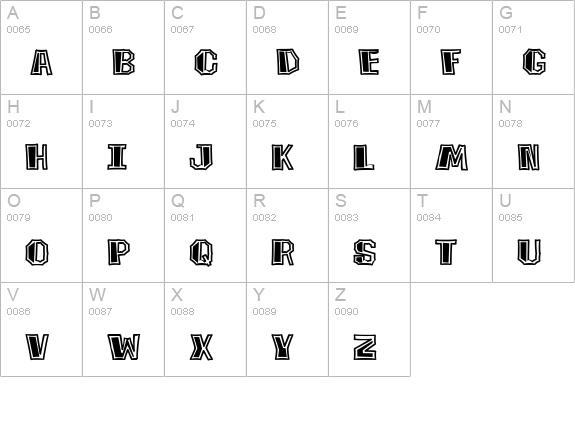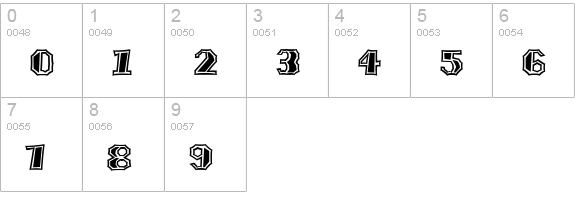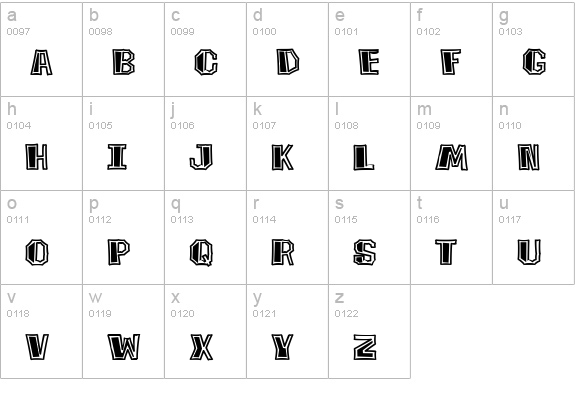
Tiki Tooka BV Font Details
Tiki Tooka BV is a free for personal use font in the General > Outline category. It has been downloaded 11 times and is available for Windows, Mac and Linux.
Tiki Tooka BV font is a stunning display font that exudes a playful and tropical vibe. With its unique and intricate design, this font captures the essence of Tiki culture, transporting you to a world of exotic paradise and laid-back vibes. Every letter is meticulously crafted, showcasing intricate details and a bold, energetic style that is sure to catch the eye. This font is not only visually captivating but also incredibly versatile. Whether you're designing a logo, creating eye-catching headlines, or adding a touch of personality to your social media posts, Tiki Tooka BV font is the perfect choice to make a statement. Its bold and distinctive look will ensure that your message stands out from the crowd. One of the best things about Tiki Tooka BV font is that it is freely available to download at FontsMarket.com. This means that you can easily access and use this font in your personal and commercial projects without any restrictions. Whether you're a professional designer or a casual user, you can enjoy the benefits of this fantastic font without breaking the bank. With its free availability and stunning design, Tiki Tooka BV font is a must-have for anyone looking to add a touch of tropical flair and boldness to their designs. So why wait? Download Tiki Tooka BV font today and let your creativity soar to new heights.